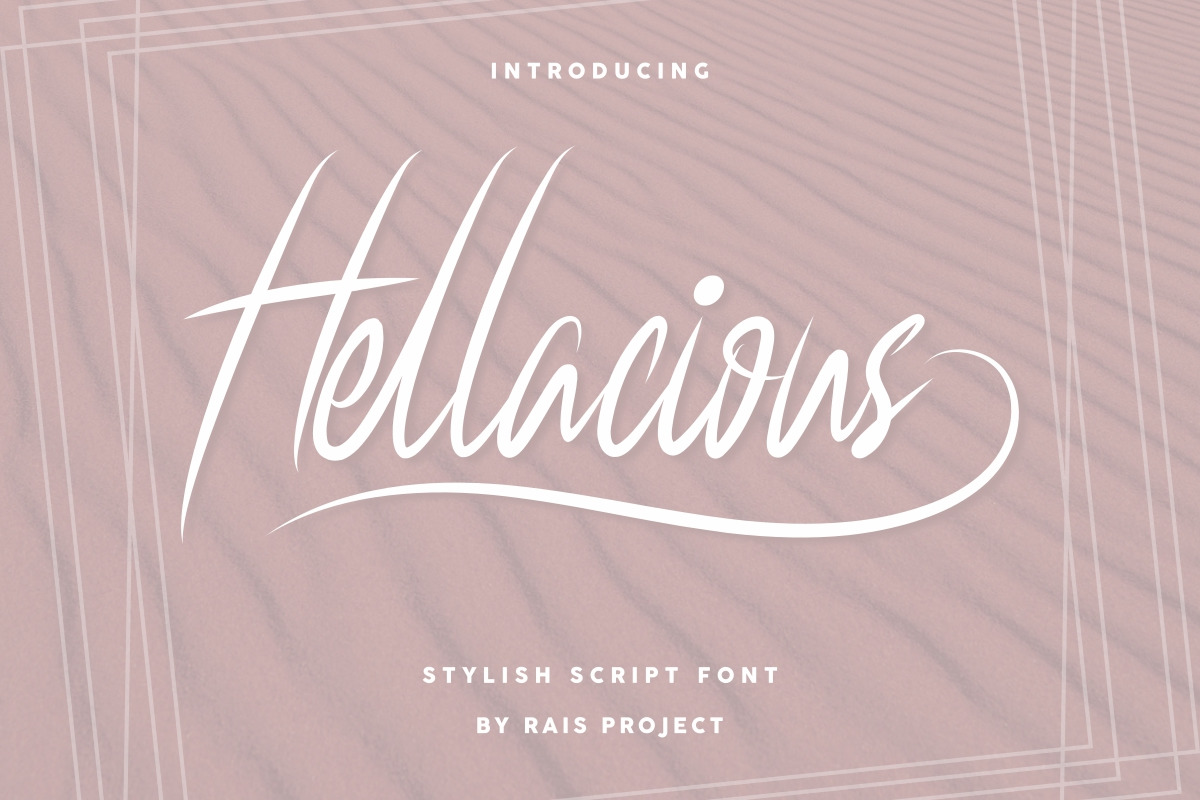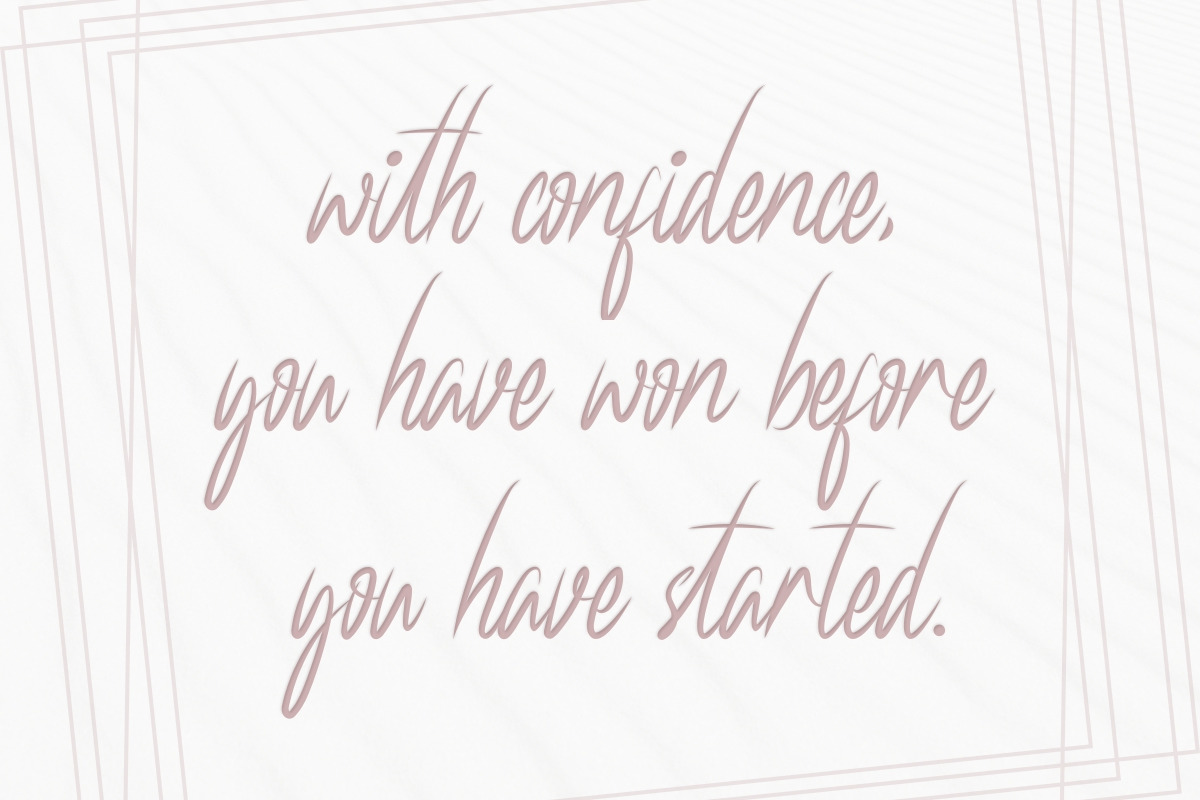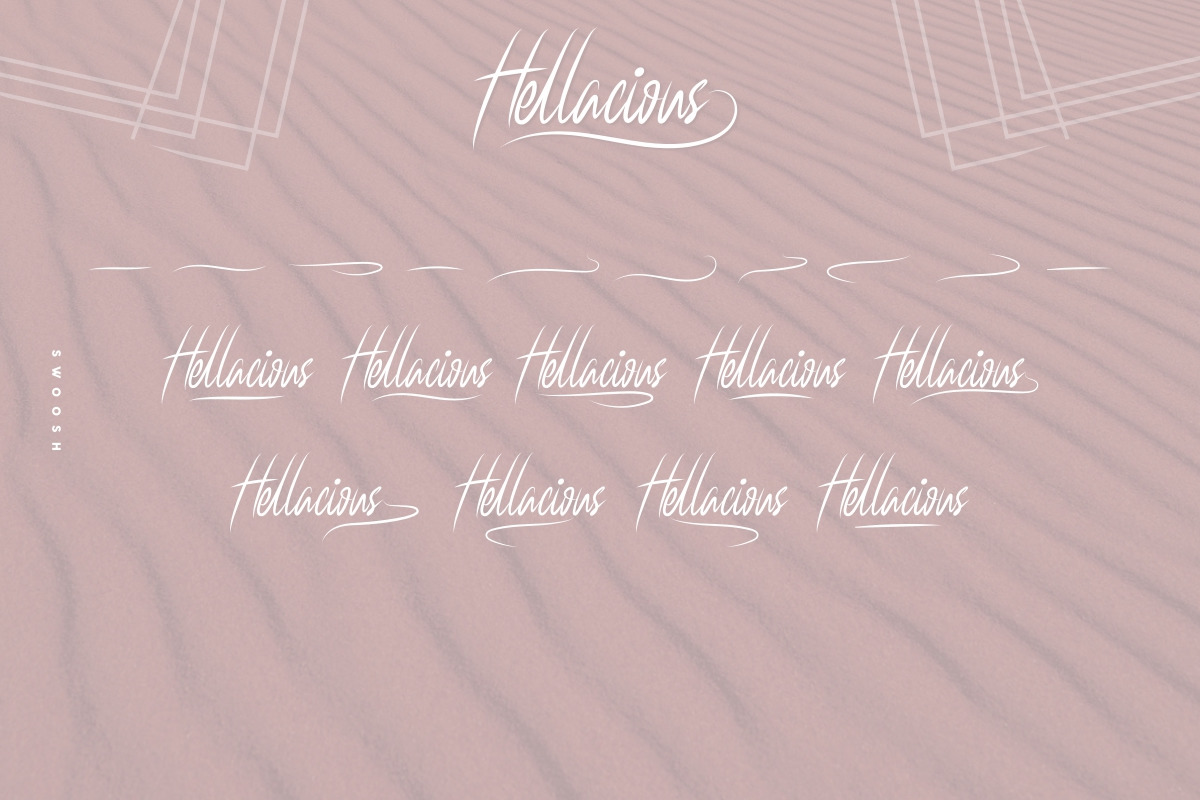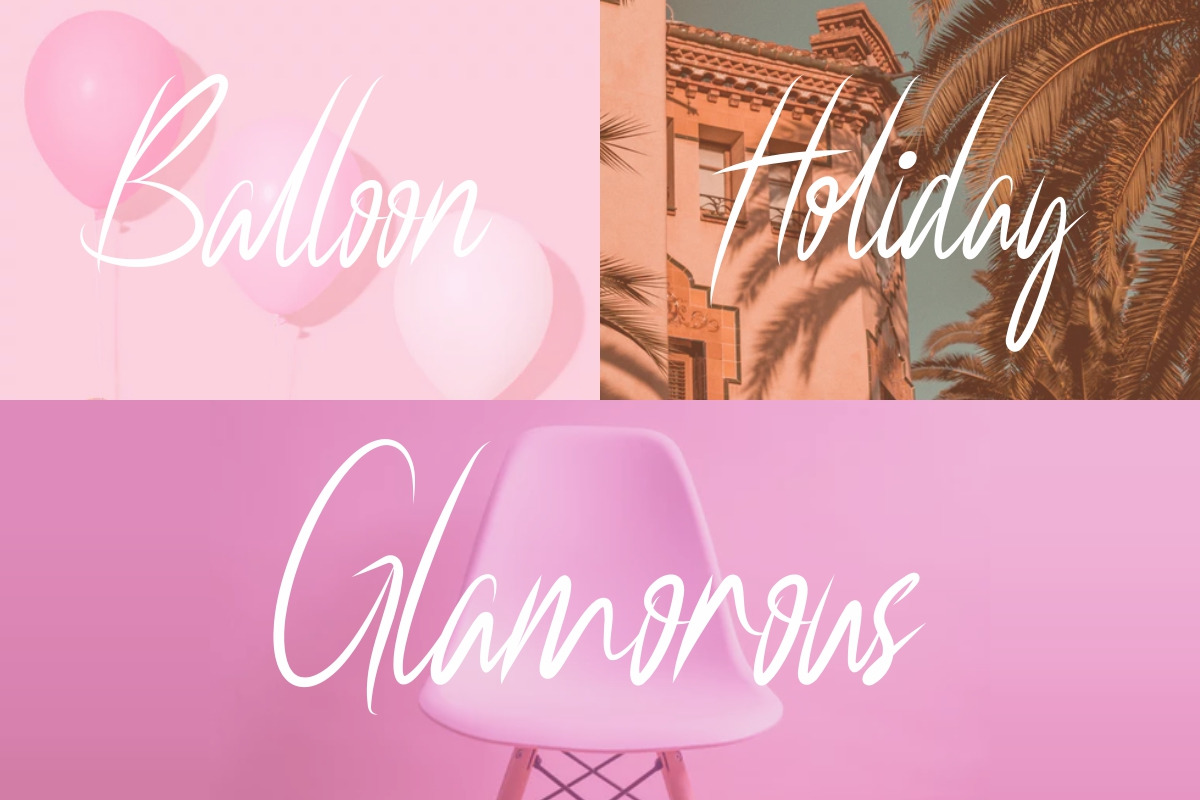
Hellacious Brush Script Calligraphy Font
Hellacious Font is a brush script font with calligraphy style. Great for many project : weddings, promotion, events, branding, advertising, magazine, shopping, signage, invitation, stationery, social media posts, product packaging, product designs, label, photography, watermark or and any projects that need calligraphy handwriting style.